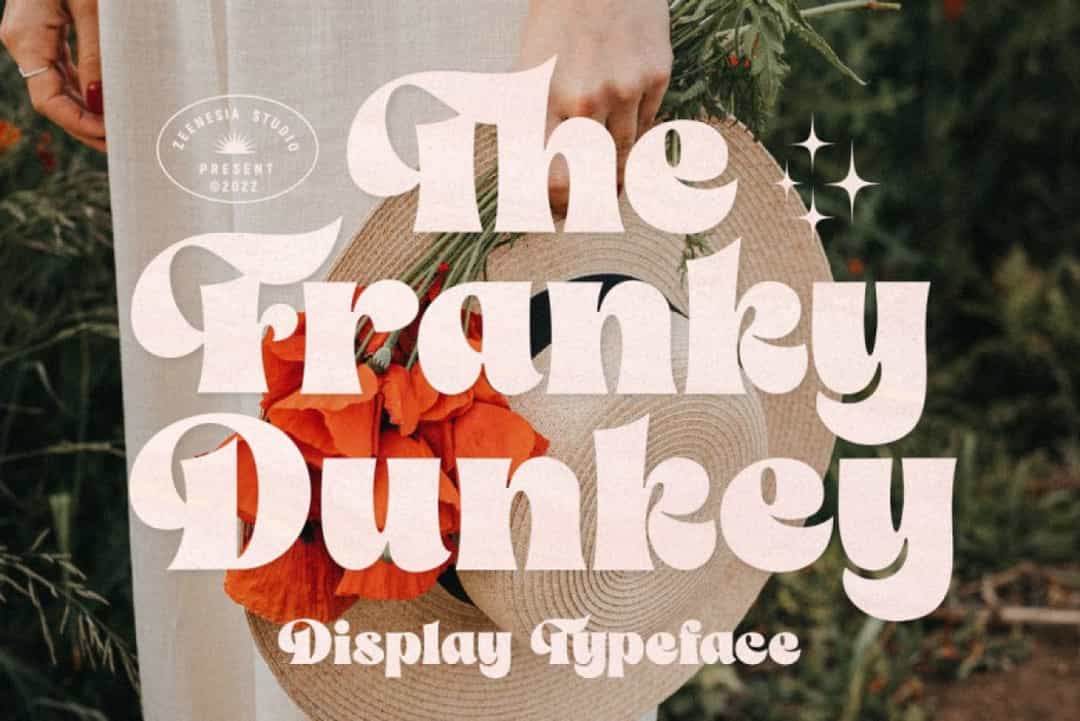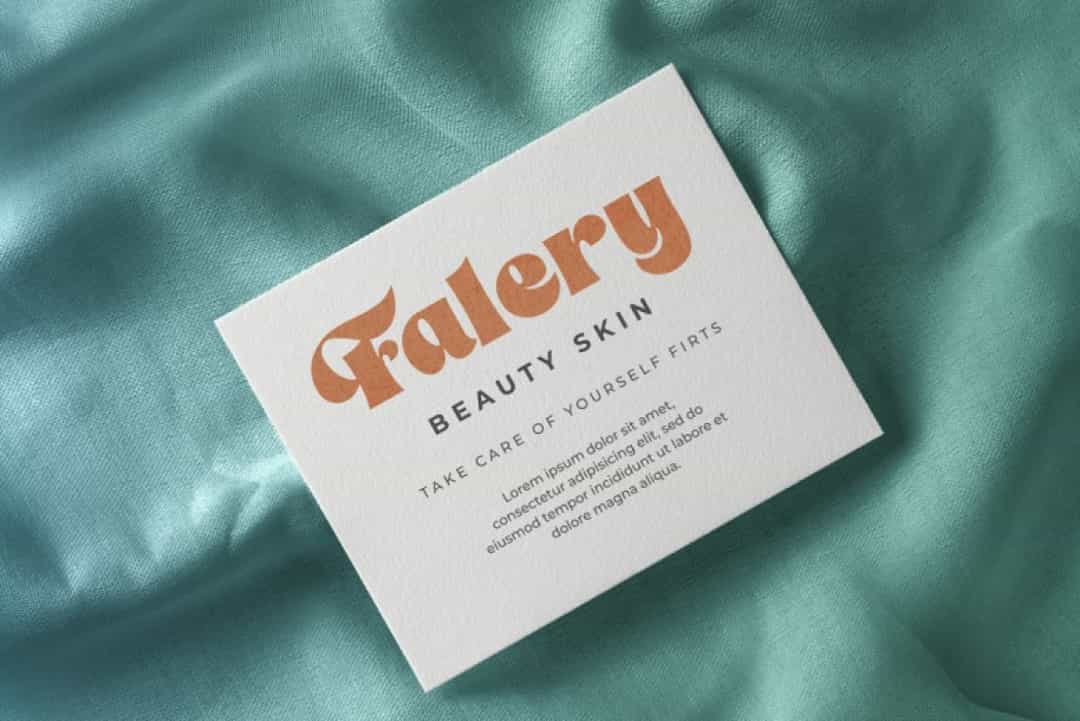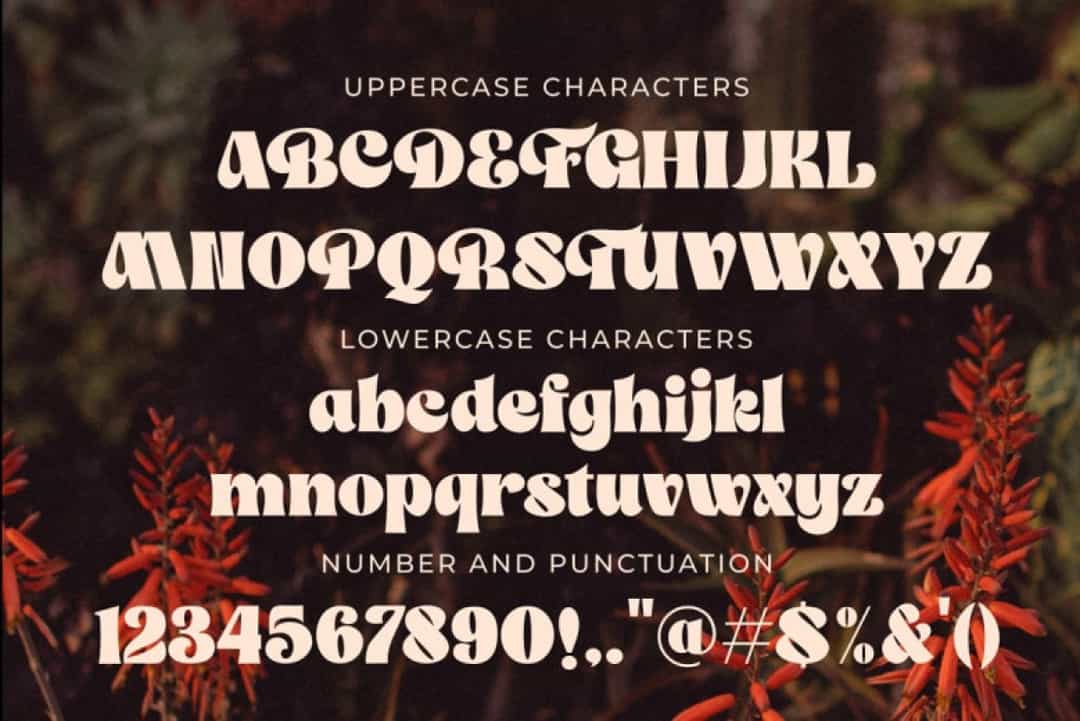
Franky Dunkey Font features an eye-catching serif display font with bold designs and soft features. A modern and classic serif font, its bold appearance stands out from others while the clear appearance make this font versatile enough to look good large as well.